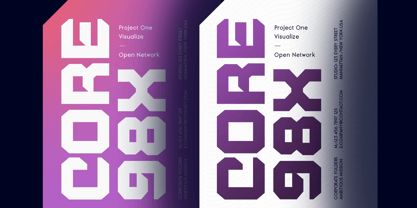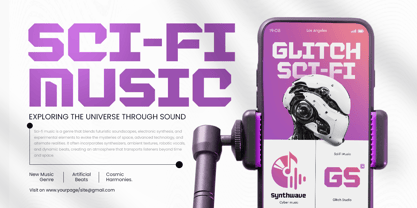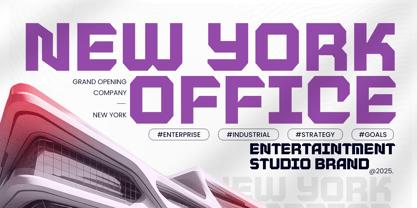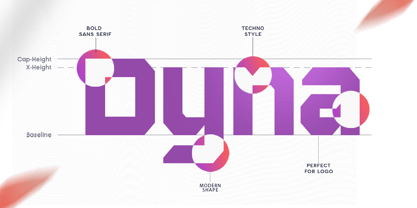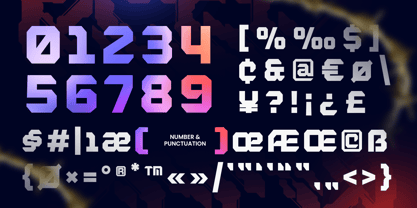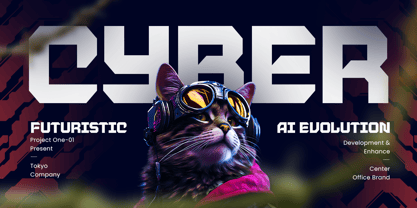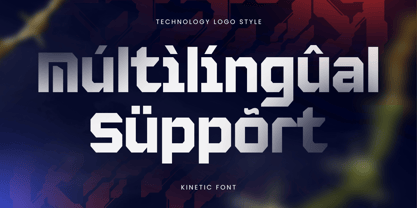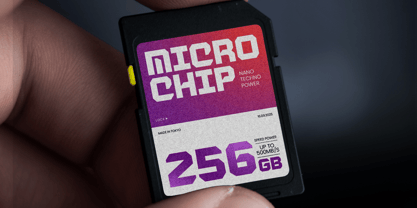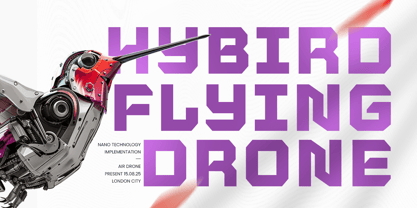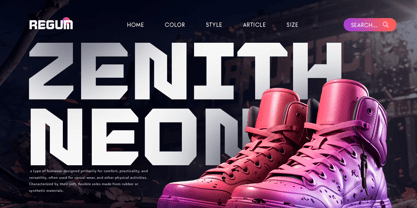
KINETIC is a technology logo font crafted to bring a sleek, futuristic edge to your branding and digital design projects. With sharp, geometric letterforms, KINETIC is perfect for tech companies, startups, digital platforms, and any project that demands a modern, high-tech look.
Ideal for logos, corporate branding, app interfaces, and digital products, KINETIC delivers clarity and impact, ensuring your designs feel innovative and professional. Its futuristic aesthetic is versatile enough for both print and digital applications, making it a go-to font for forward-thinking designers.
Font Features
Sharp, modern letterforms with a high-tech aesthetic
Perfect for logos, branding, UI/UX, and digital projects
Includes uppercase, lowercase, numerals, and punctuation
Sleek, professional design suitable for corporate and tech projects
OpenType features for advanced typographic flexibility
Elevate your tech branding with KINETIC – the ultimate font for modern, futuristic logo design. ⚡
Kinetic